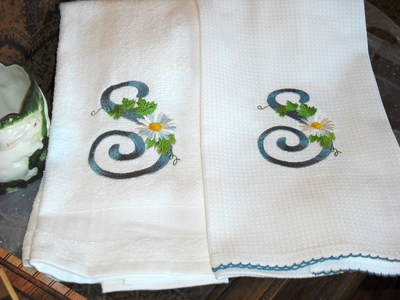
Stitched on two different towels. Love this font!.
Hi Katy, These look so good when can I collect! S for Sally
This S would make a nice Sally. The lower case is also included in the pk.
looks very nice.
Very pretty
Beautiful!
I love this font, from where is it?
It is from CuteAlphabets.com
very nice... love the font
Ohhhh, these are so pretty! I love the font, too.
Thank you. It is from Veronika's sister site Amazing Embroidery designs.
Katy this is a gorgeous font! I checked my files and I do not have this one so I am hoping they make it a freebie someday!
I haven't checked lately to see if it is available for voting. It does come in a pack which also has lower case. It is a very pretty font.
I have this font but haven't tried it yet. Your towels came out great :)
Very nice font, the towels look great.*4u
very very cute font, i like it ****
that is indeed beautiful
I too, love these daisy fonts *
These are elegant, I love ths alpha!